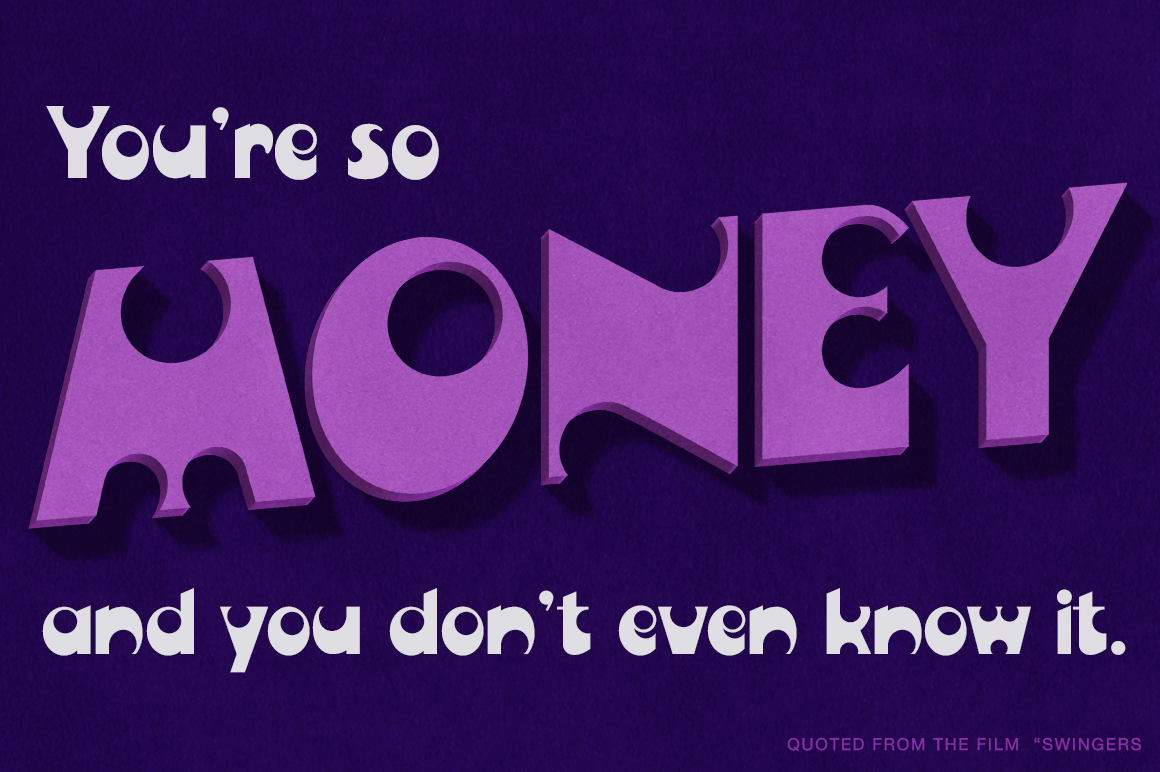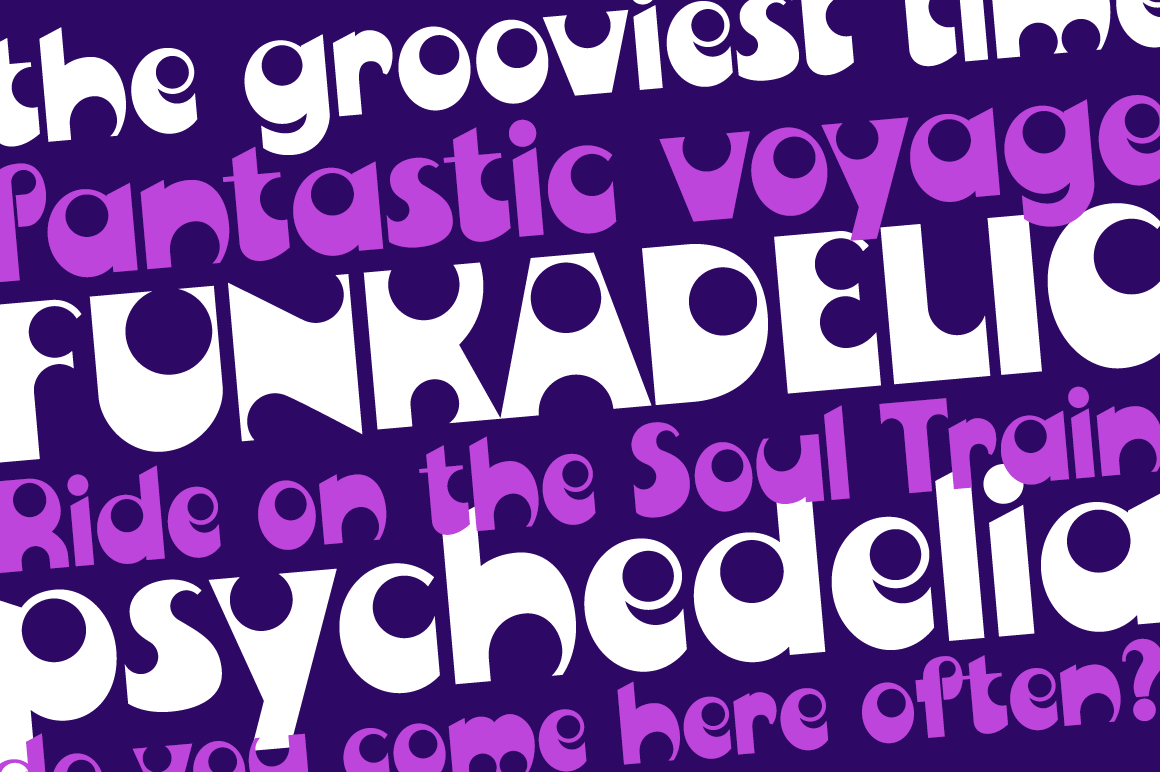
A vintage look to the future of type, this funky typestyle with circular cut outs was stylish for its day, and a true novelty for today. Blackhole PB began as a digitization of a film typeface known as Circue Solid by LetterGraphics. This typestyle has…